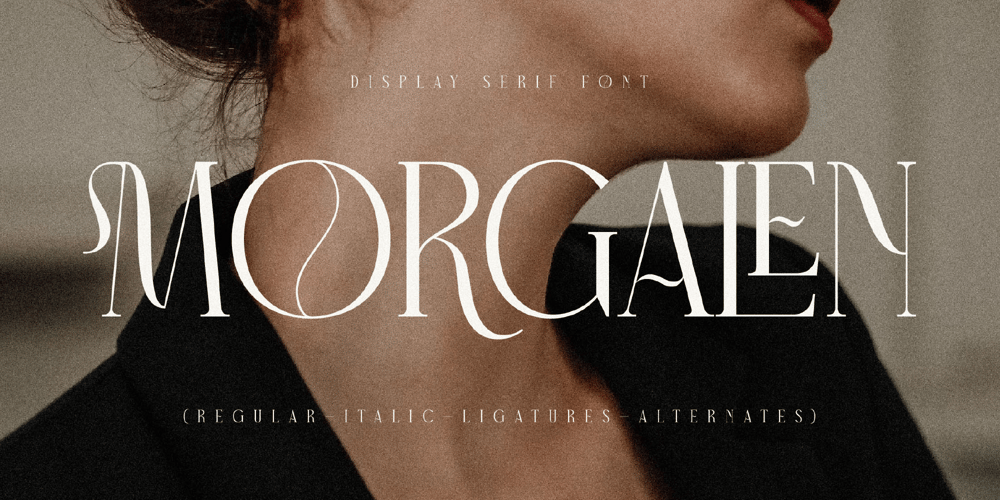
Morgalen Font Family was designed by Heru Utama Putra and published by Letterena Studios. Morgalen contains 2 styles and family package options. Morgalen is a modern and classic serif typeface that has its own unique style. It is perfect for an elegant & luxurious logo, book or movie title design, fashion brand, magazine, clothes, lettering, quotes, and so much more.